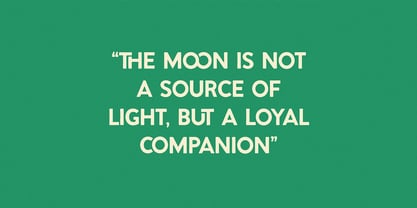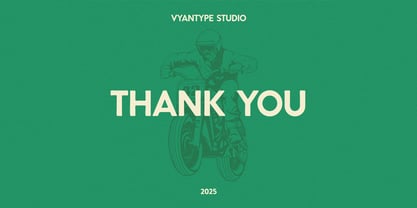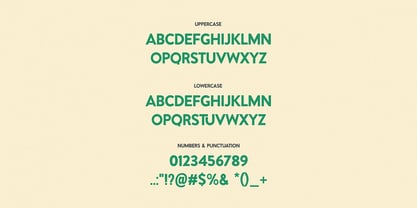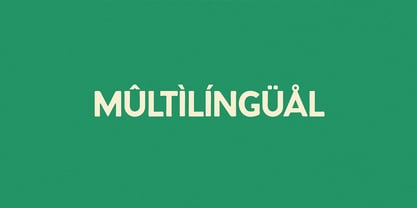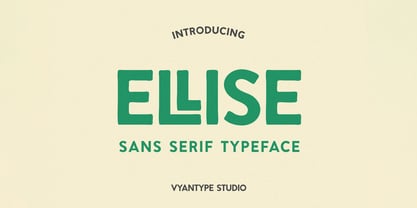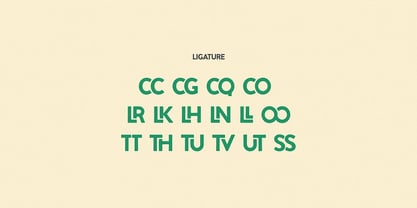
Ellise
by Vyantype Studio
The Ellise Font Family was designed by Hero Novyanto and published by Vyantype Studio. Ellise contains 1 styles. More about this family
A retro-style font inspired by vintage western designs. It can be used to represent a design style with a fun yet classy feel. This font is also very attractive with its multilingual variants and various ligatures. Designers can also combine this font with illustrations or logos in a retro, vintage, or classic industrial style. This font represents a cheerful, bold yet playful expression and reflects an old-school style.
Designers: Hero Novyanto
Foundry: Vyantype Studio